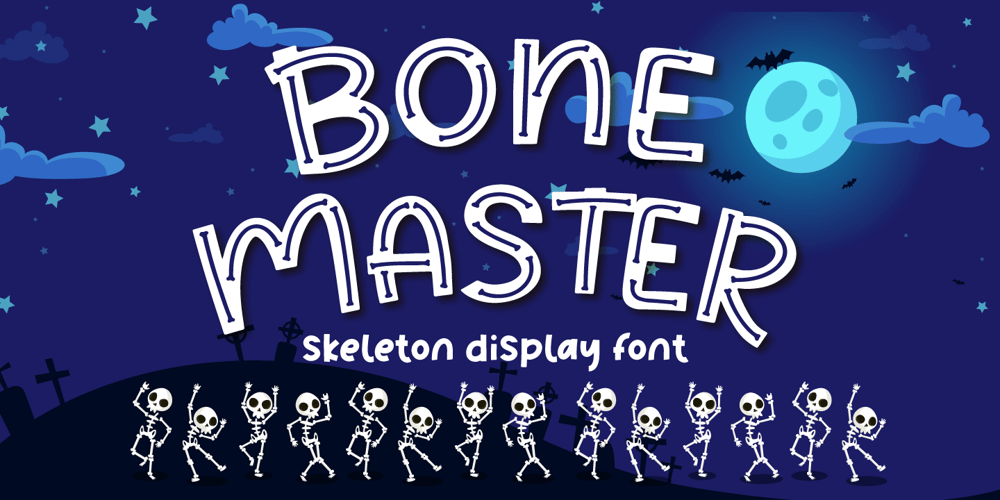
Bone Master
Bone Master font
Bone Master Font Family was designed by Fadli Ramadhan Iskandar and published by Attype Studio. Bone Master contains 2 styles and family package options. Bone Master is a Halloween display font with bone display on the glyph, perfect for any halloween events and promotions.Bone master is perfect for branding, logo, invitation, stationery, social media post, product packaging, merchandise, blog design, game titles, cute style design, Book/Cover Titles and more.Includes Multilingual Support for Afrikaans, Albanian, Catalan, Danish, Dutch, English, Estonian, Finnish, French, German, Icelandic, Italian, Norwegian, Portugese, Spanisch, Swedish, Zulu.Hope you enjoy with our font!Attype Studio